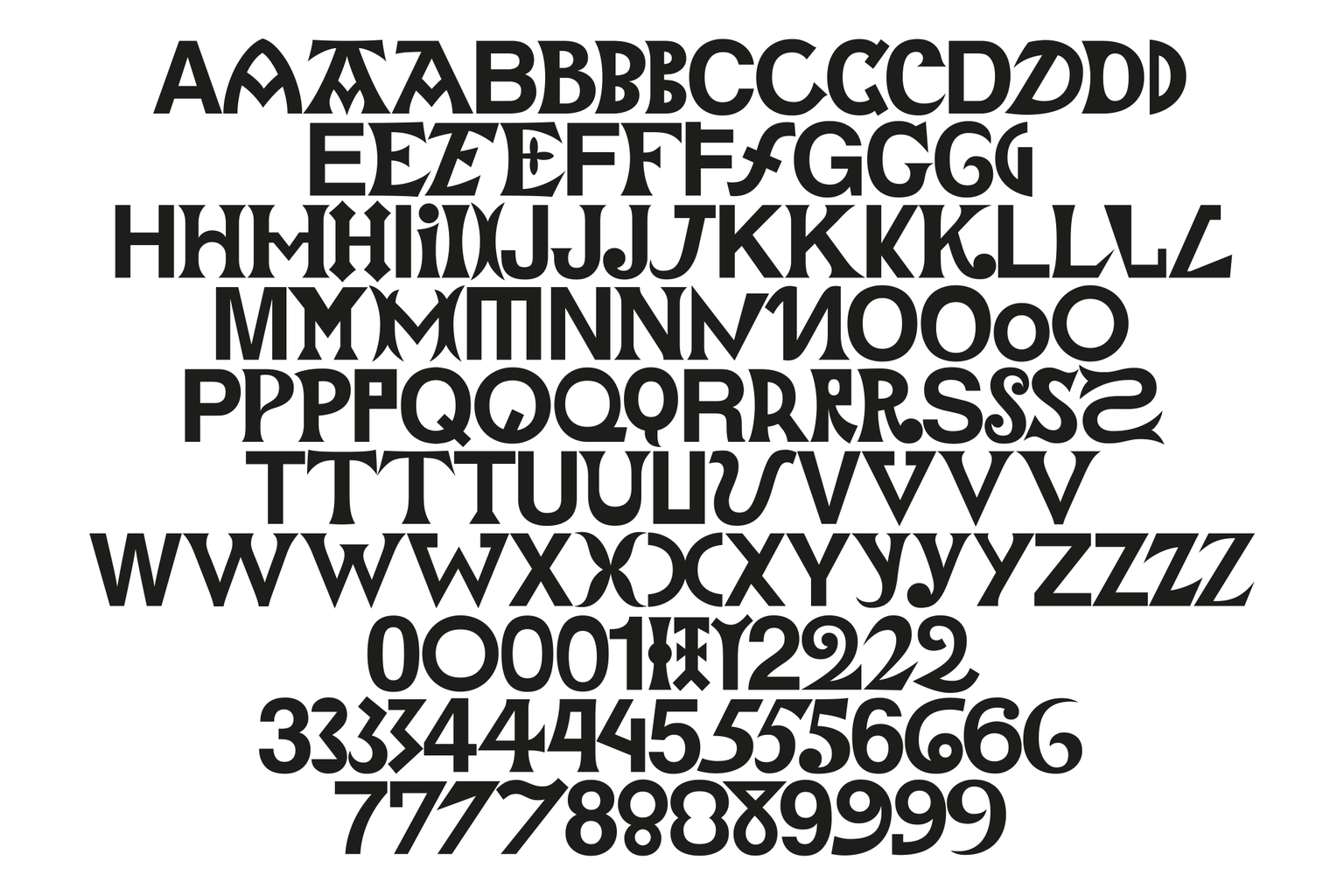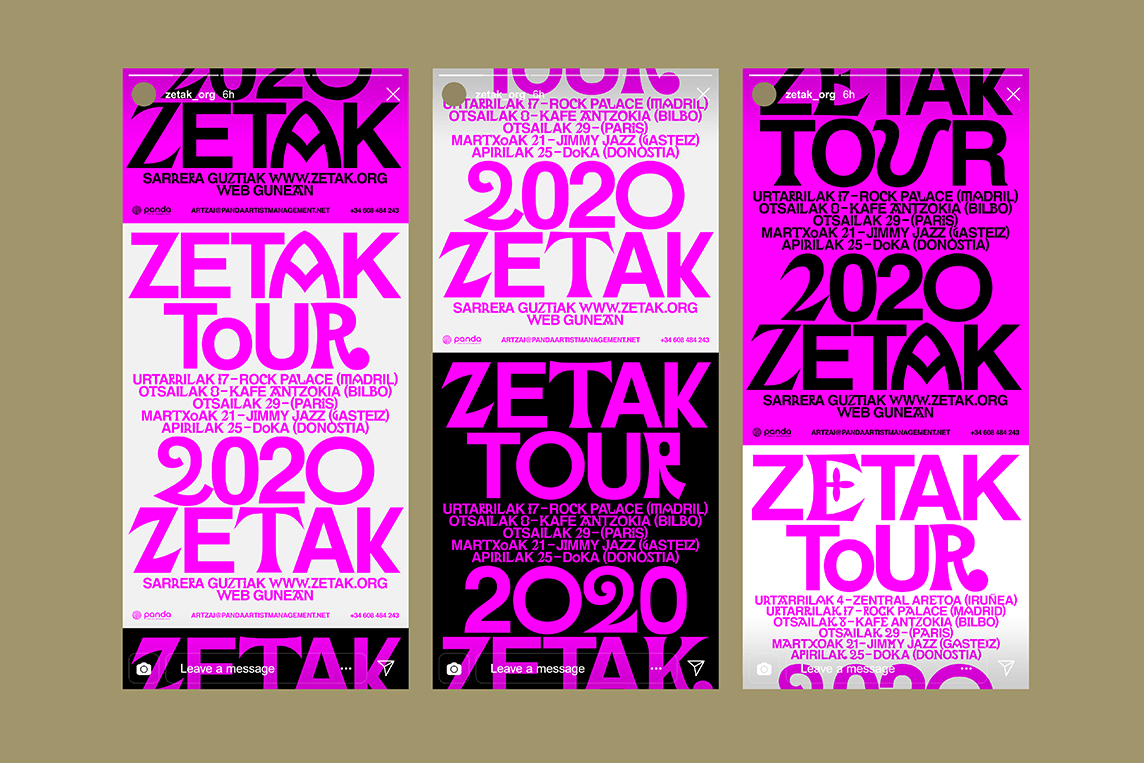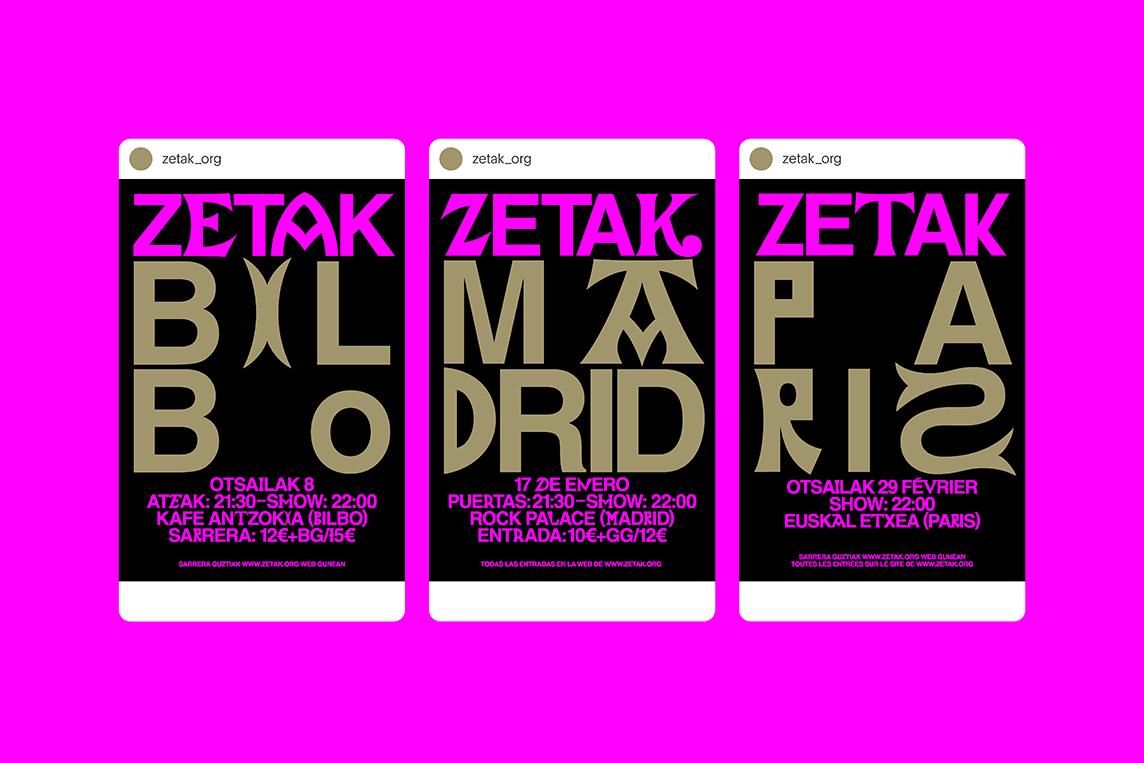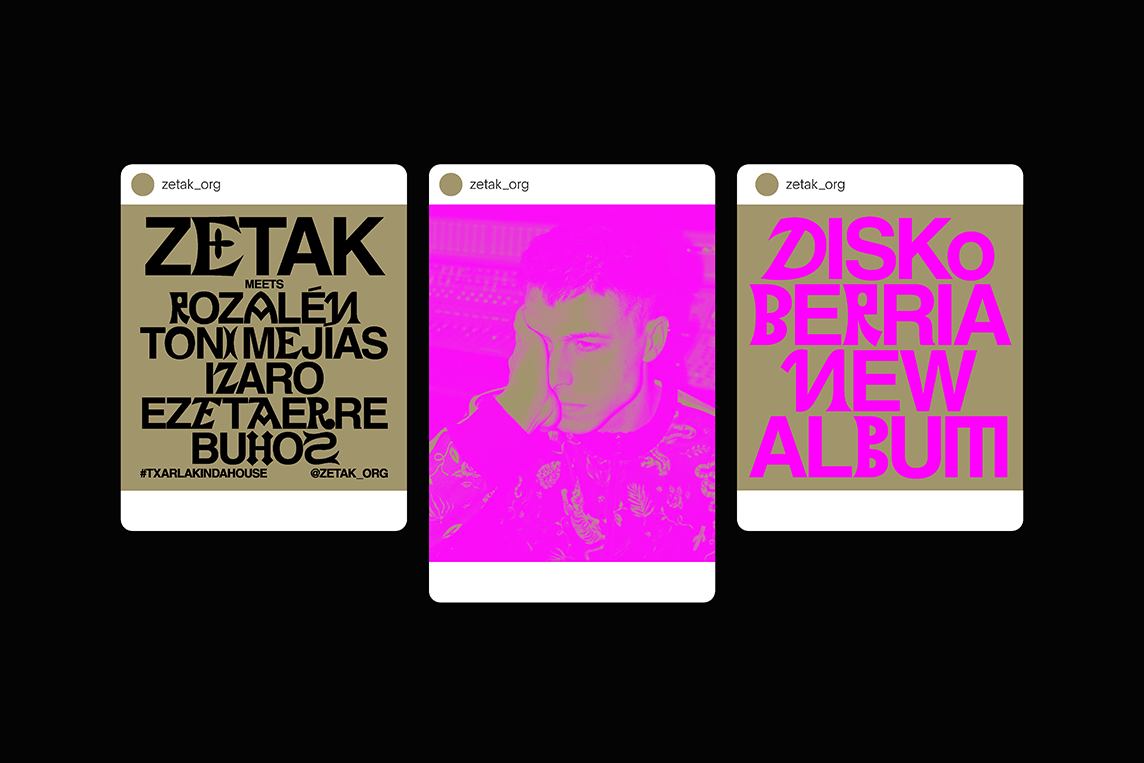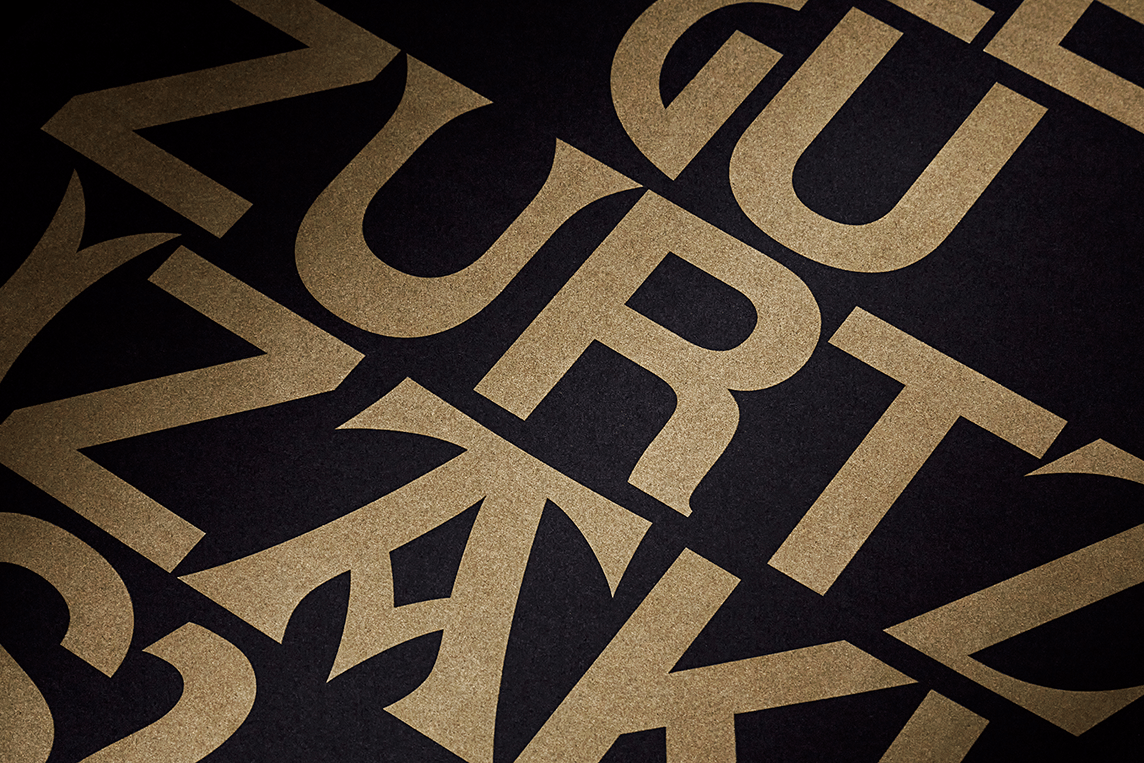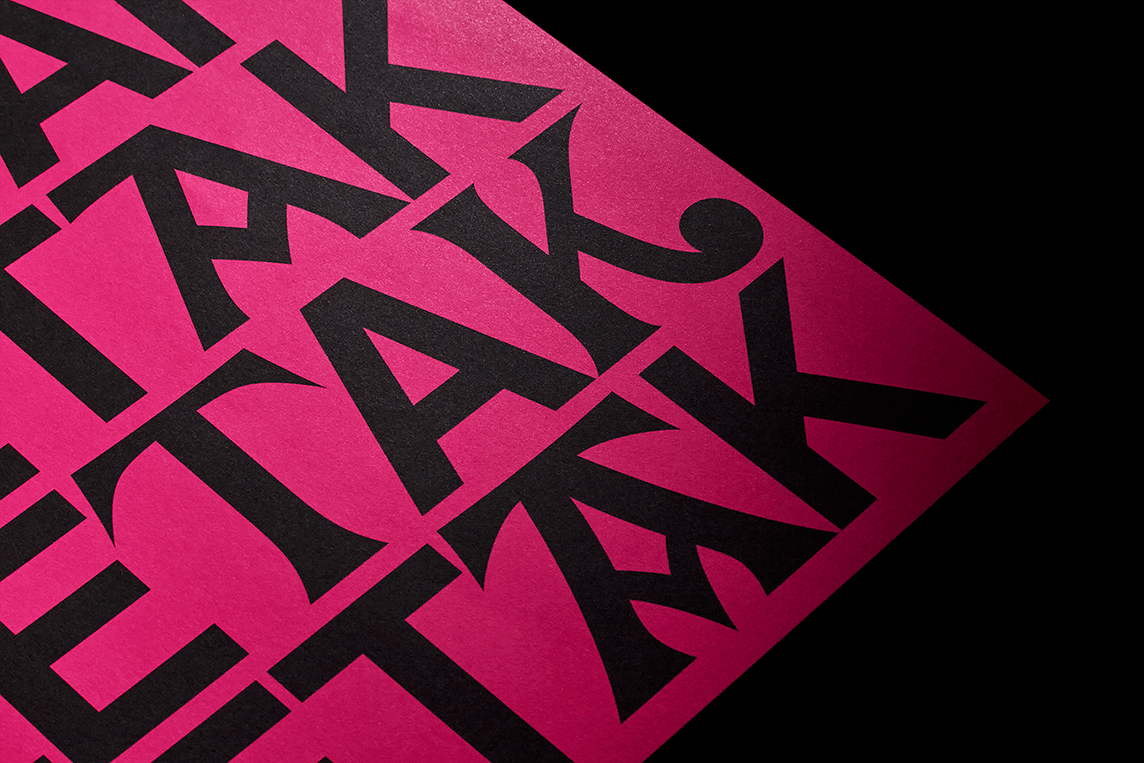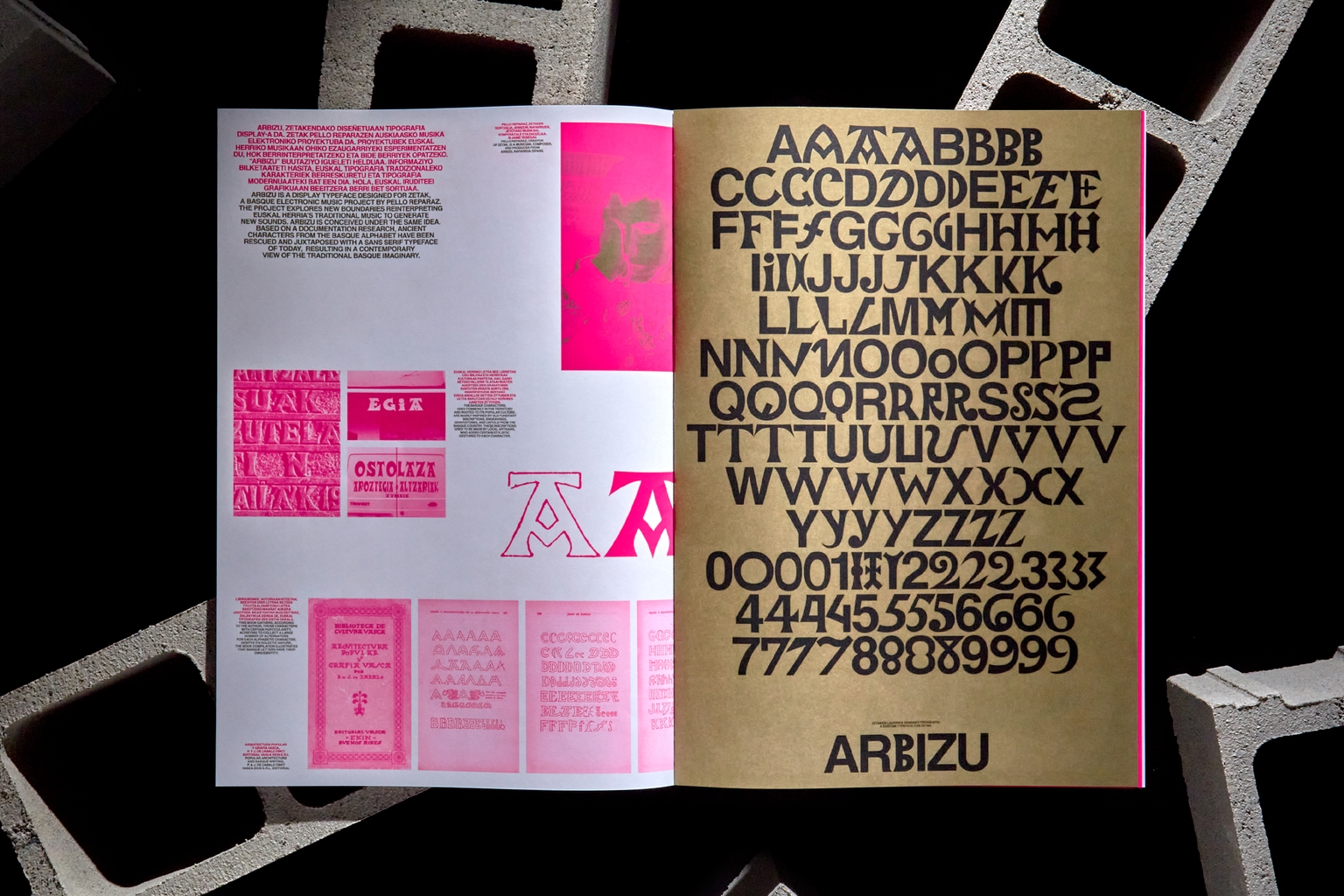
Arbizu is a contemporary type system for visual Identity for Zetak, a basque electronic music project commanded by Pello Reparaz. Zetak is contemporary sound with Euskal Herria’s traditional music. Practica designed all grafic elements for the Zetak's brand and Arbizu, the custom typeface is the main element to articulate all the branding. The font is conceived under the same idea. Based on a documentation research, ancient characters from the Basque alphabet have been rescued and juxtaposed with a sans serif typeface of today, resulting in a contemporary view of the traditional Basque imaginary. Each Arbizu character contains three alternates that are set randomly, giving musicality and rhythm to the typeface.